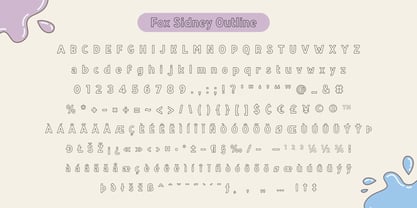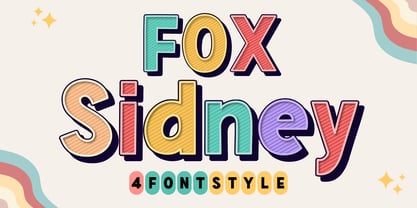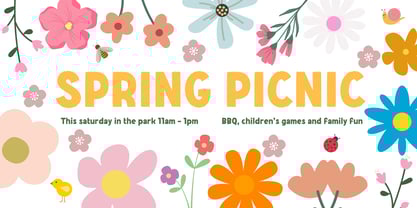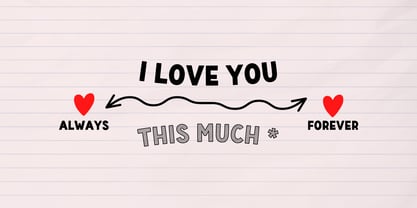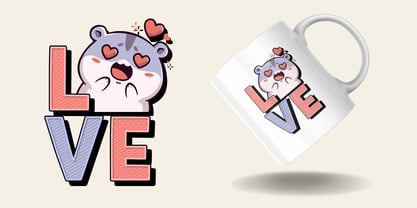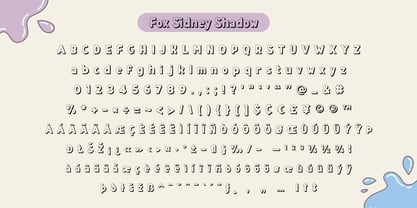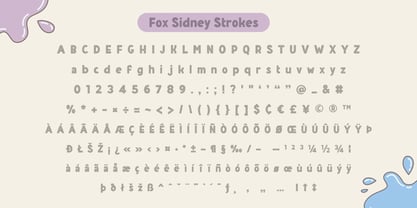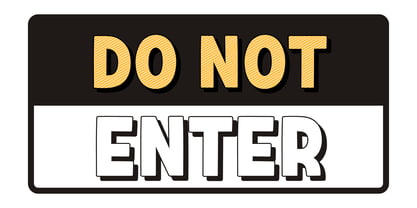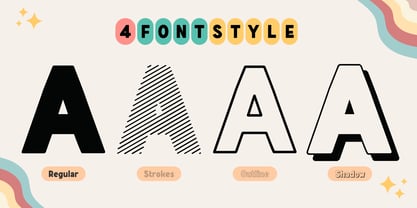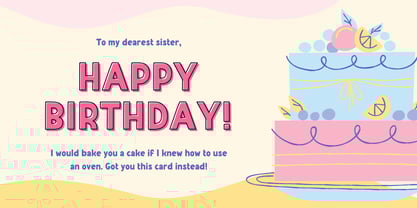
Fox Sidney
La familia tipográfica Fox Sidney fue diseñada por Rattana Rattanawan y publicada por Fox7. Fox Sidney contiene 4 estilos y opciones de paquete familiar.
Fox Sidney is a fun and vibrant display font designed to bring a cheerful and energetic feel to your projects. Featuring four unique styles—Regular, Strokes, Outline, and Shadow—this font offers versatility for eye-catching headlines, posters, logos, and playful designs.
With its bold letterforms, hand-drawn texture, and colorful retro aesthetic, Fox Sidney is perfect for projects that need a lively and engaging touch. Whether you're working on children’s designs, branding, or social media graphics, this font will add a creative and dynamic element to your typography.
Get ready to make your text stand out with Fox Sidney’s charming and playful style!